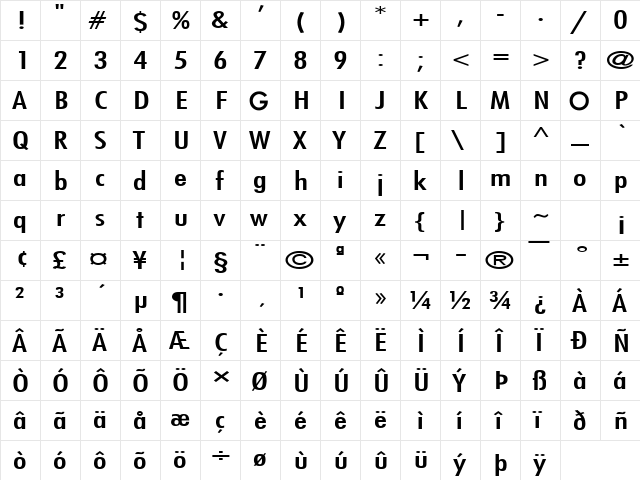
/1981 - 1982 Normal
Design Context for /1981 - 1982 Typeface
/1981 - 1982 offers clean, dependable letterforms without strong stylistic allegiance, making it a practical choice for designers who need flexibility.